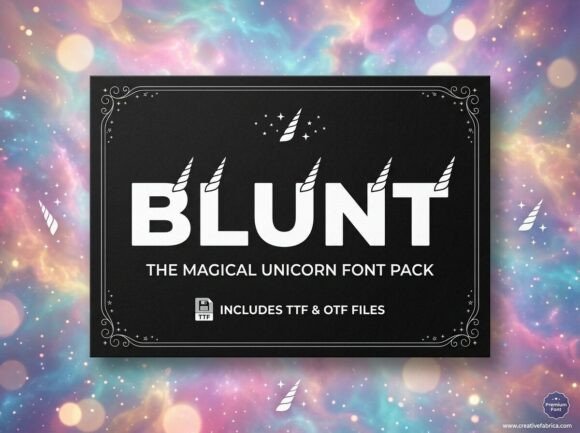
Introducing Blunt Font: A Stunning Decorative Display Font
Are you tired of using the same old fonts for your designs? Do you want to make a bold statement and grab the attention of your audience? Look no further than Blunt Font, a unique and artistic display font that’s perfect for creators who want to break away from the ordinary.
What is Blunt Font?
Blunt Font is a decorative display font designed to be the center of attention. With its unique artistic elements and strong visual personality, this font is sure to make your designs stand out from the crowd. Whether you’re looking to create bold headlines, artistic logos, or creative packaging, Blunt Font is the perfect choice.
Key Features of Blunt Font
- Unique Artistic Elements: Blunt Font features unique artistic elements that set it apart from other fonts. Each letter is carefully crafted to make a statement and add a touch of elegance to your designs.
- Strong Visual Personality: This font has a strong visual personality that’s perfect for creators who want to make a bold statement. Whether you’re designing a logo, headline, or packaging, Blunt Font is sure to grab attention.
- Versatile: Despite its bold and artistic nature, Blunt Font is versatile enough to be used for a variety of design projects. From bold headlines to artistic logos and creative packaging, this font is perfect for any project that requires a touch of elegance and sophistication.
- Professional and Polished Finish: Blunt Font maintains a professional and polished finish, making it perfect for designers who want to create high-quality designs.
Please note that Blunt Font is an ALL-CAPS (Uppercase Only) display typeface. This means that it does not include lowercase letters. It’s specifically designed for high-impact headlines, logos, and decorative initials where every letter is a work of art.
Why Should I Use Blunt Font?
There are many reasons why you should use Blunt Font for your design projects. Here are just a few:
- Add a Touch of Elegance: With its unique artistic elements and strong visual personality, Blunt Font adds a touch of elegance to any design project.
- Stand Out from the Crowd: If you want to make a bold statement and grab the attention of your audience, Blunt Font is the perfect choice.
- Perfect for Logos and Headlines: Whether you’re designing a logo or headline, Blunt Font is perfect for creating high-impact designs that demand attention.
How Can I Use Blunt Font?
Blunt Font is perfect for a variety of design projects, including:
- Logos: Use Blunt Font to create a bold and artistic logo that sets your brand apart from the competition.
- Headlines: Whether you’re designing a headline for a website, magazine, or newspaper, Blunt Font is perfect for creating high-impact headlines that grab attention.
- Packaging: Add a touch of elegance to your packaging designs with Blunt Font. Perfect for product labels, packaging inserts, and more.